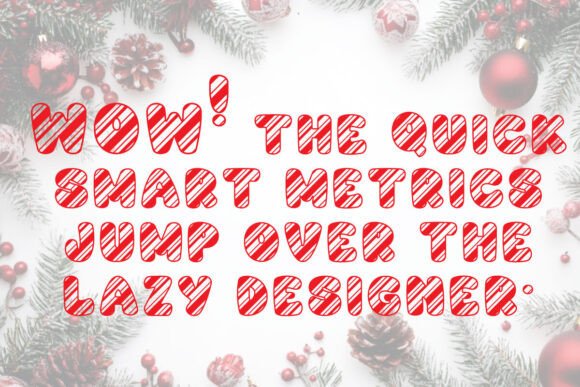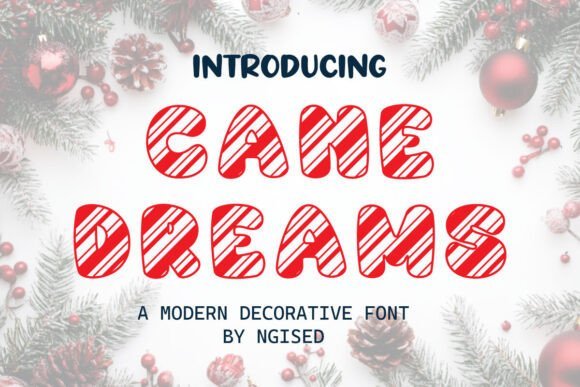
Introduction to Cane Dreams Font
CaneDreams Decorative Font is a whimsical and festive font inspired by the classic candy cane pattern, perfect for adding a touch of holiday cheer to any design project.
The playful, striped strokes of this font are reminiscent of peppermint treats, making it ideal for Christmas cards, holiday decor, or any winter-themed crafts With its eye-catching design, CaneDreams brings a fun and joyful vibe to your projects, whether you are creating digital designs or printable materials.
Cane Dreams Font offers exceptional quality and versatility, making it a valuable addition to your design toolkit. Whether you’re creating for personal projects or commercial use, Cane Dreams Font delivers professional results.